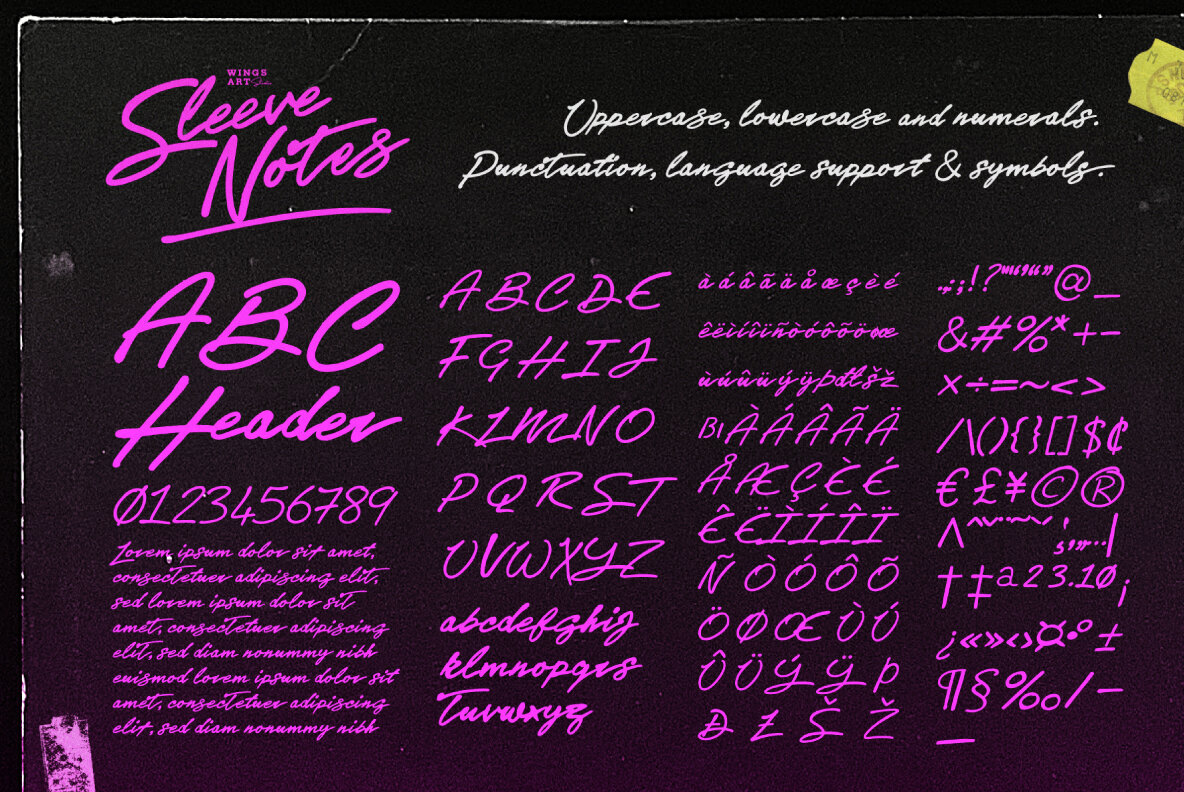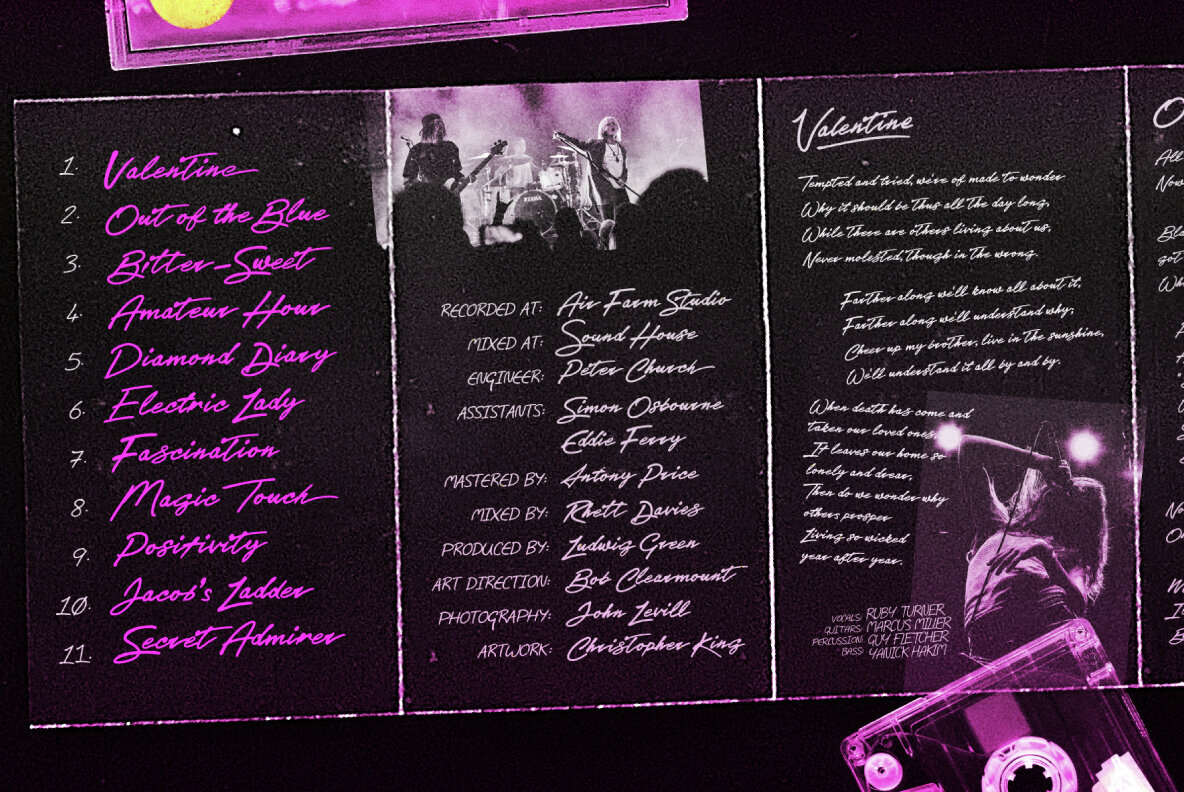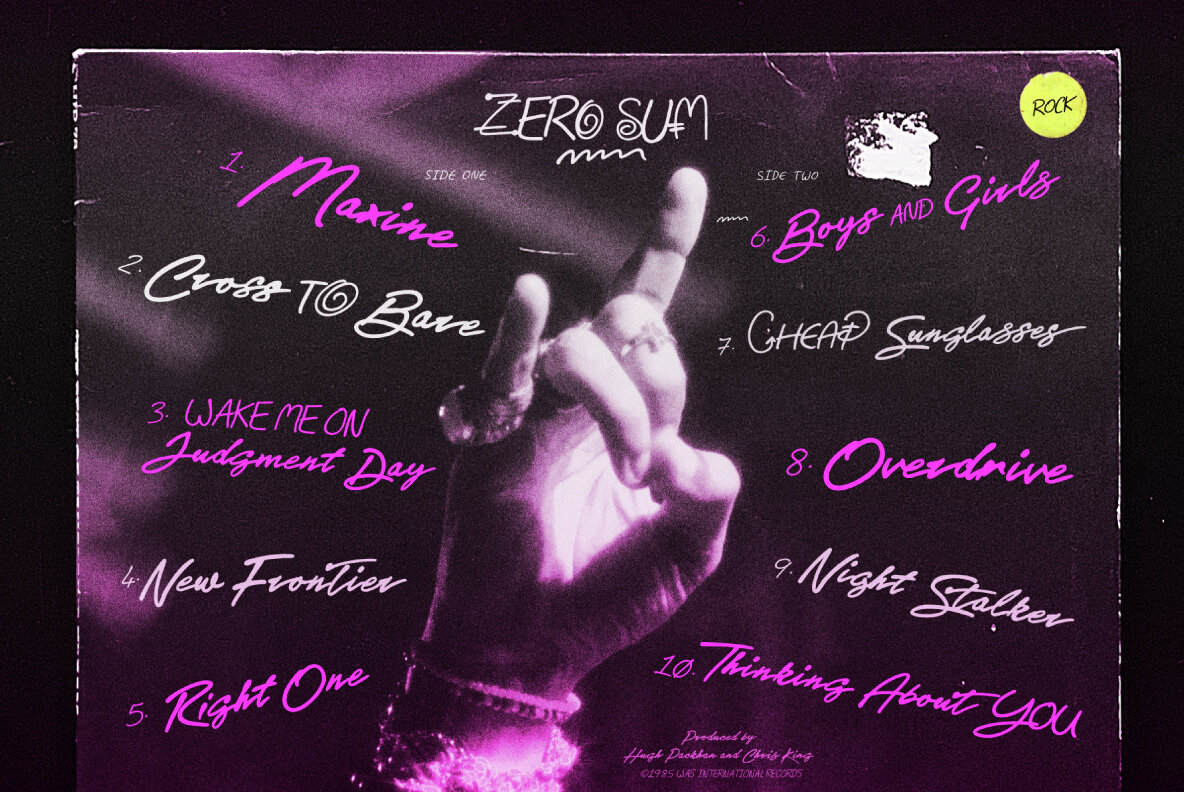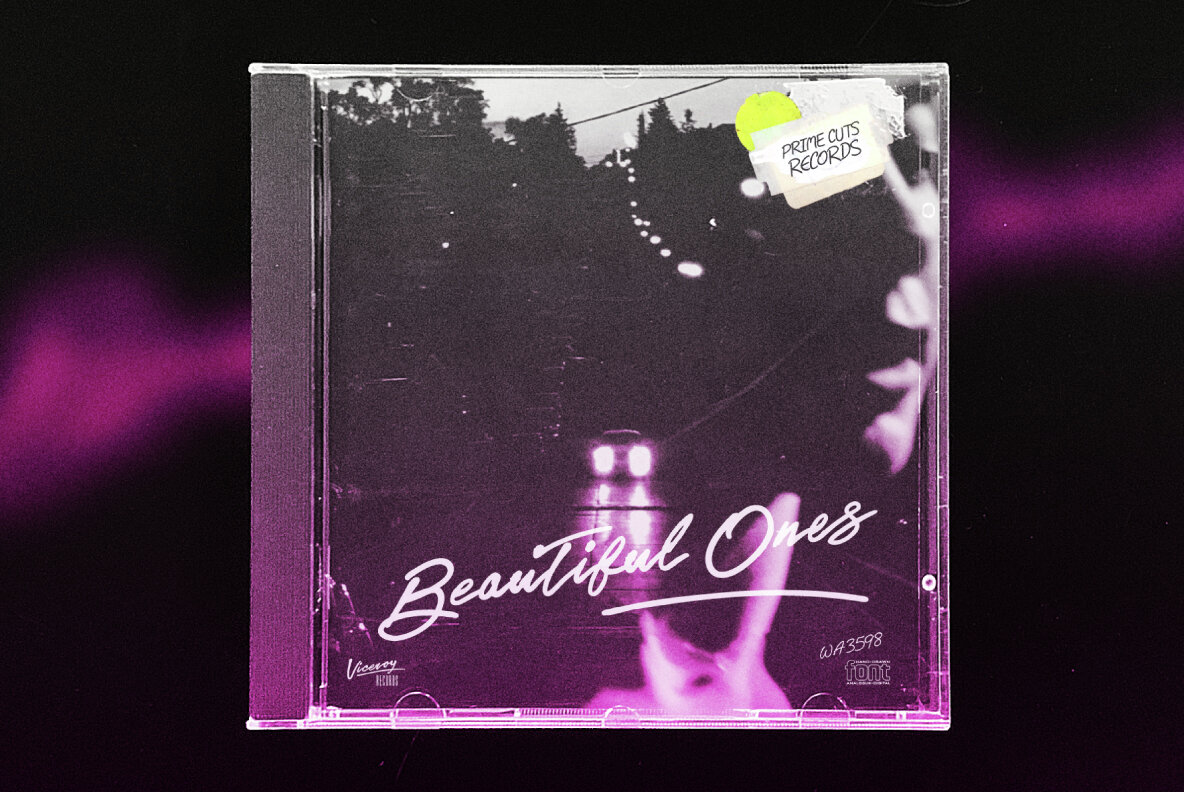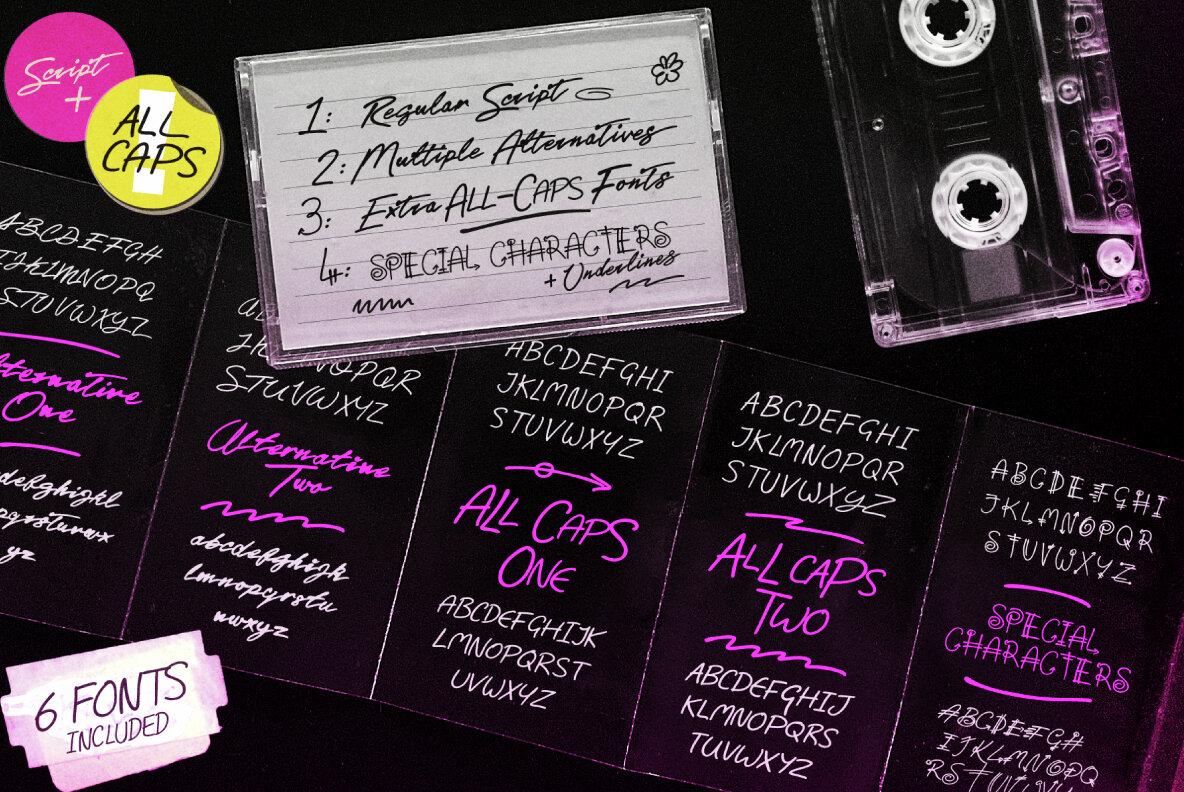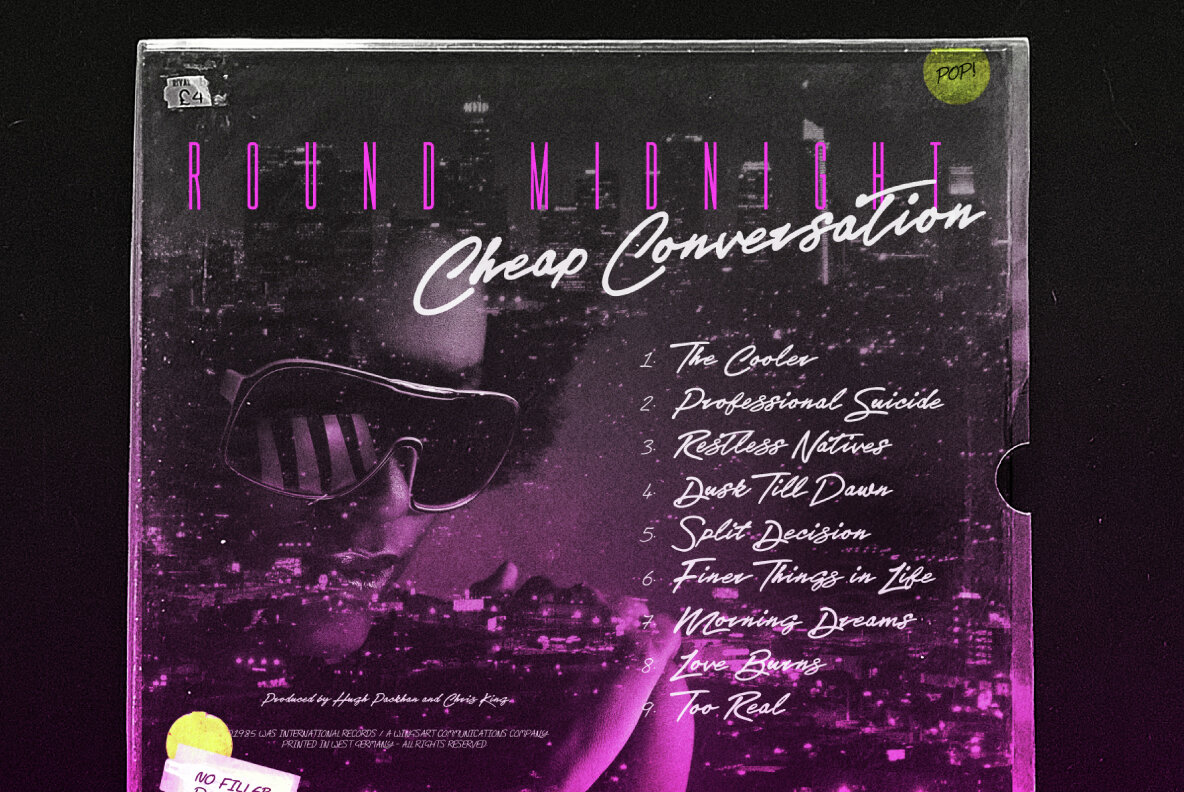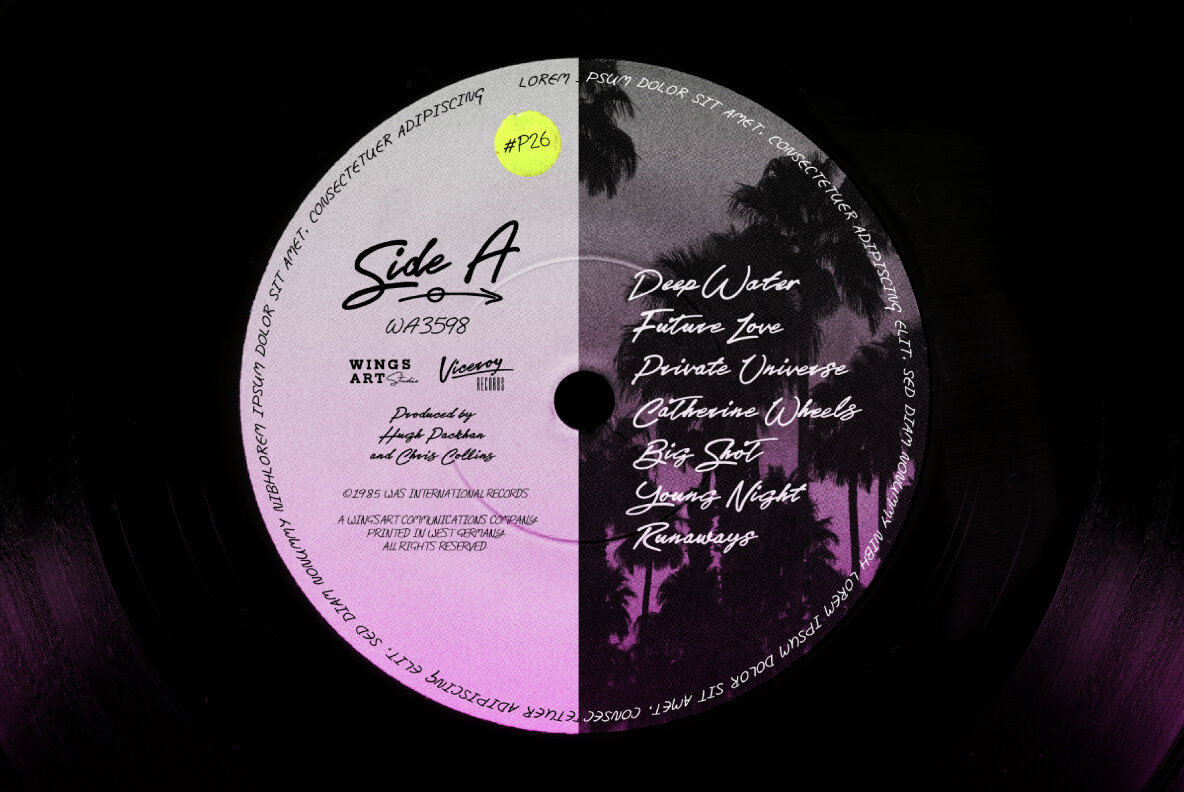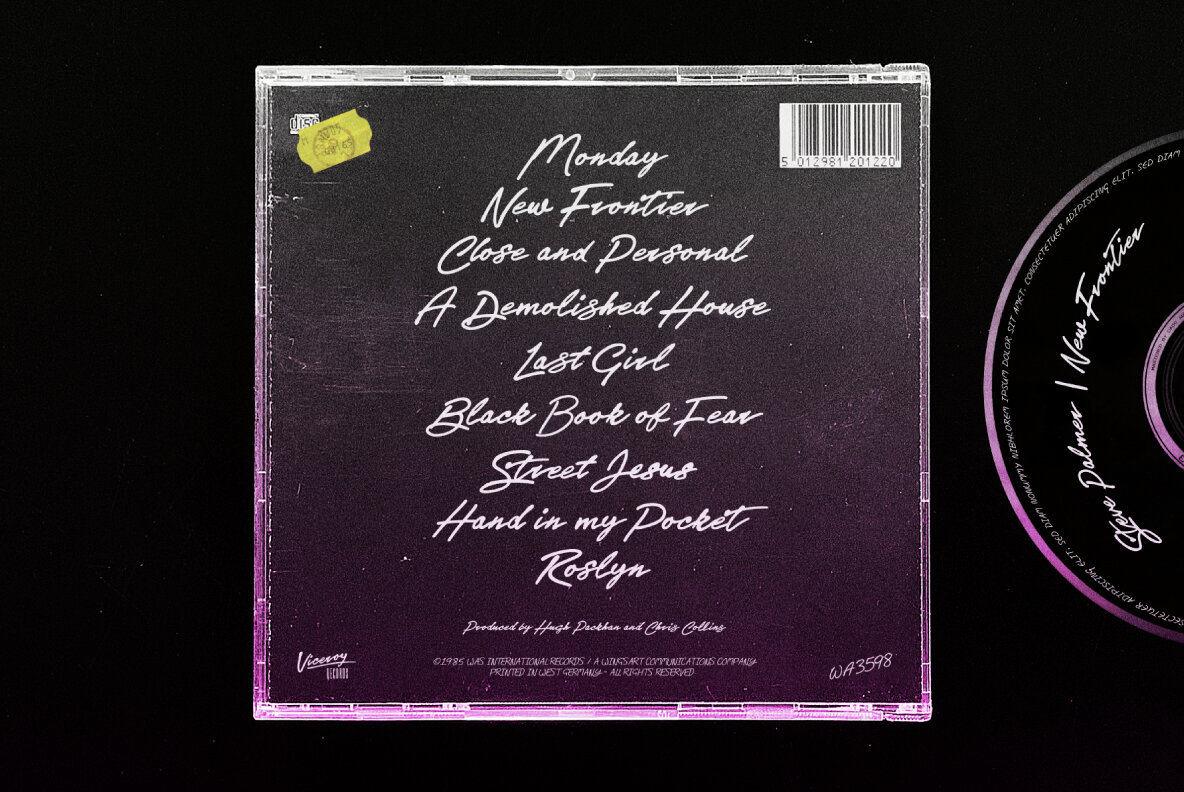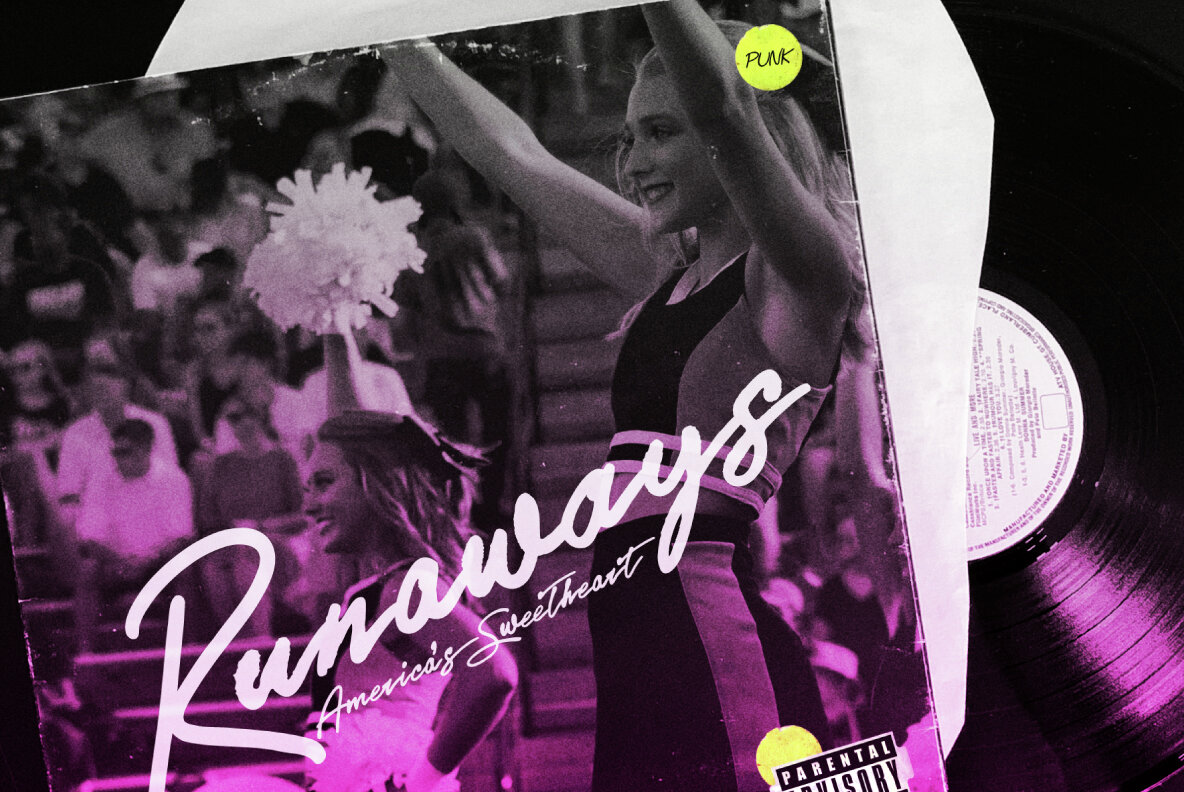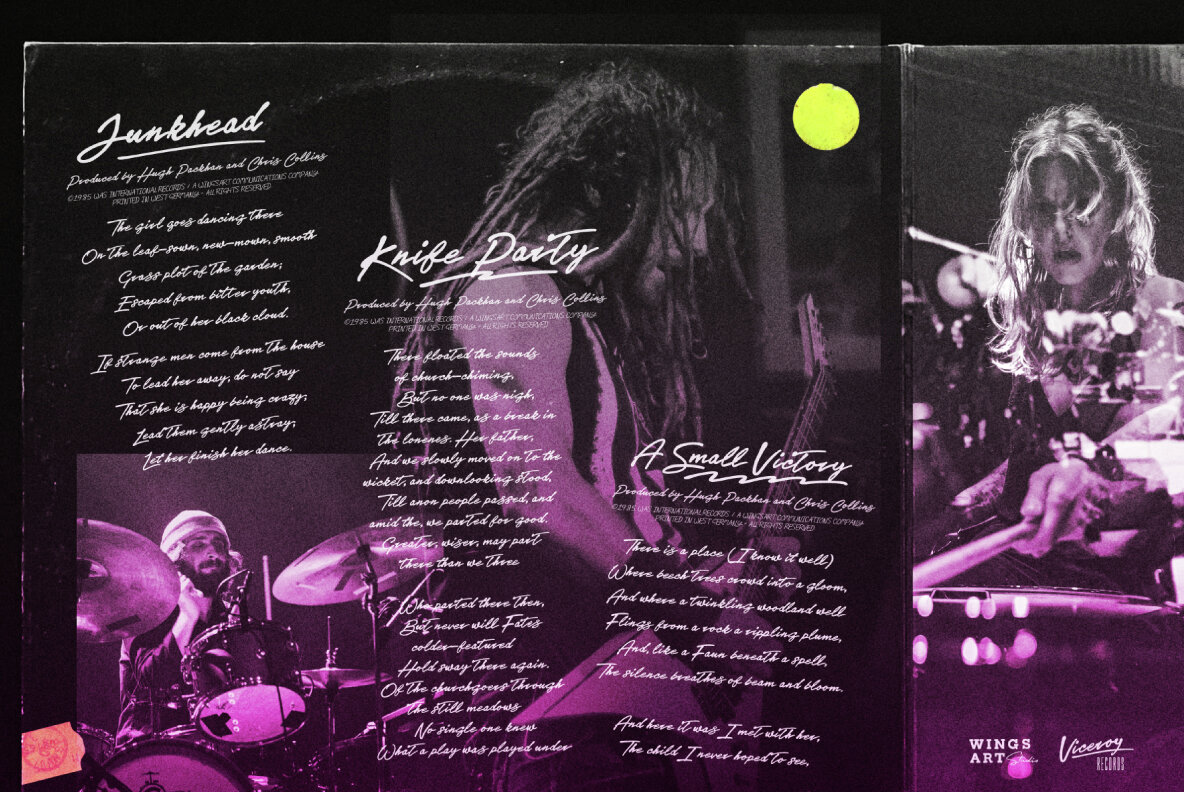
Sleeve Notes Font
Sleeve Notes: A font from the analogue age. Inspired by album covers and hand-written song lyrics.
Sleeve Notes is an experimental script font and all-caps pair with a loose hand-written style that explores the golden-age of record stores, vinyl albums, cassettes and CDs. It imagines our teenage selves kicking back with a coke (oversized headphones on) discovering a new band and studying the notes on their latest album. Besides production credits, the best sleeves (otherwise known as liner notes) included photos, cool artwork and hand-written song lyrics that gave the listener a human connection to the mind of the artist.
This font embraces it's subtle ink blotches and rough edges; all imperfections that build to create a sense of a hastily written lyric, set-list or just a fun little scribble.
The package includes six fonts in total; the regular script with two complete sets of alternatives, then two sets of all-caps, and finally the special characters font that features a decorative alphabet plus symbols and underlines.
Sleeve Notes Font Family:
- Regular
- Alternative 01
- Alternative 02
- All Caps 01
- All Caps 02
- Special Characters*